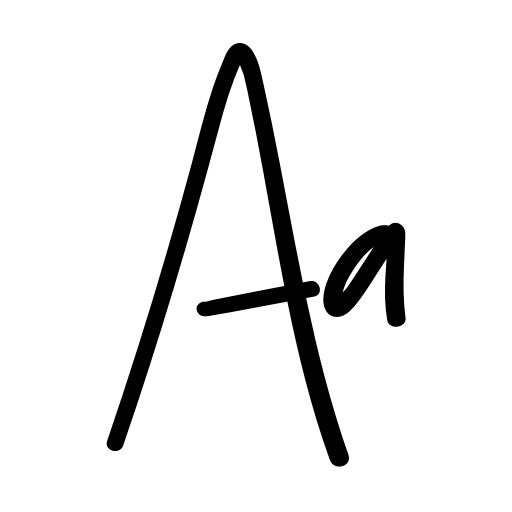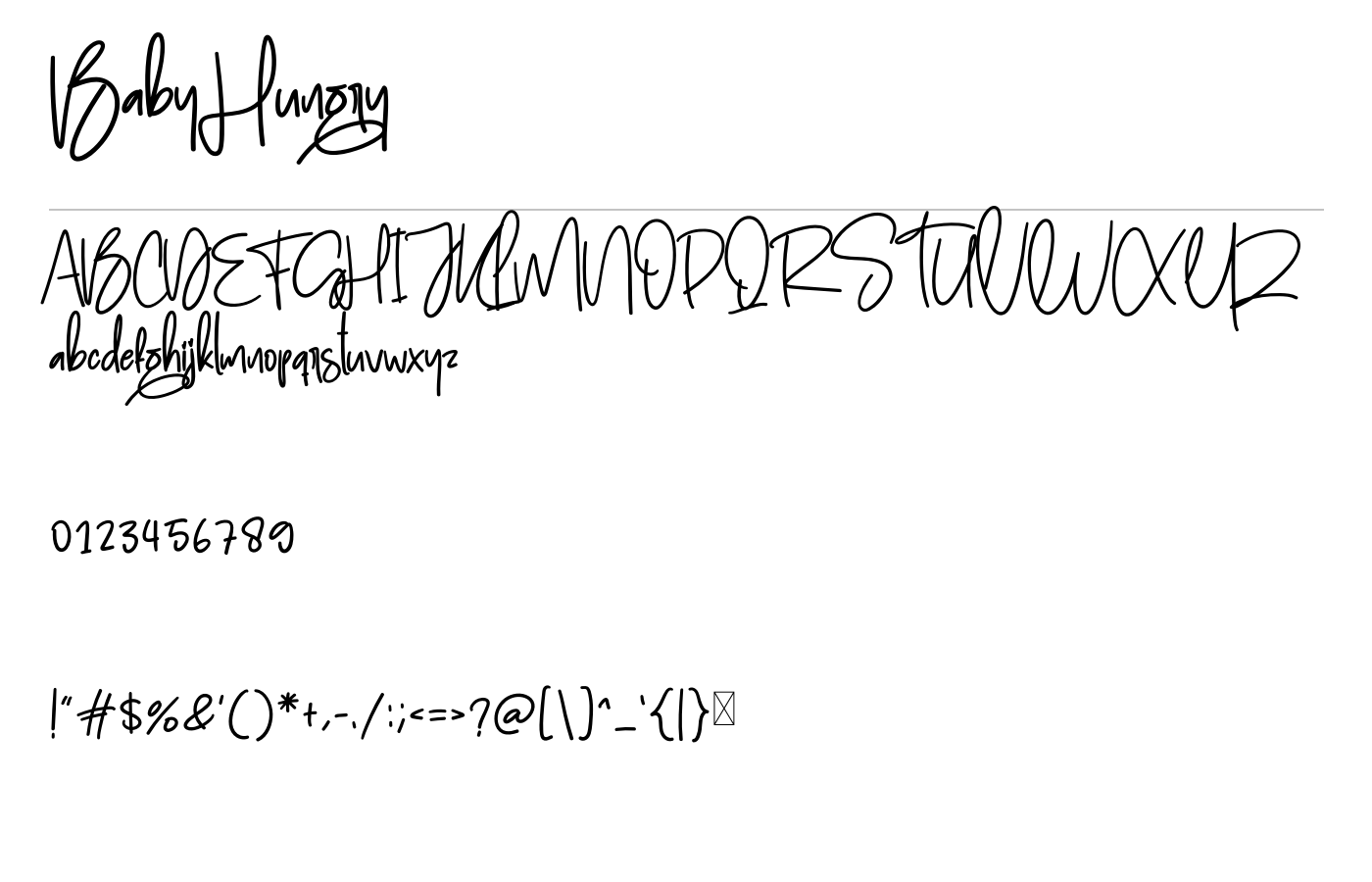
Baby Hungry is a playful, hand-drawn script font with a casual, energetic style characterized by tall, narrow letterforms and lively, looping strokes. Its irregular, sketch-like lines give it a personal and informal feel, making it perfect for creative projects, fun branding, and eye-catching headlines that want to convey a youthful and carefree mood. This font works best in designs where a spontaneous and artistic touch is desired, such as posters, invitations, and social media graphics.
Baby Hungry Font
About Baby Hungry Font